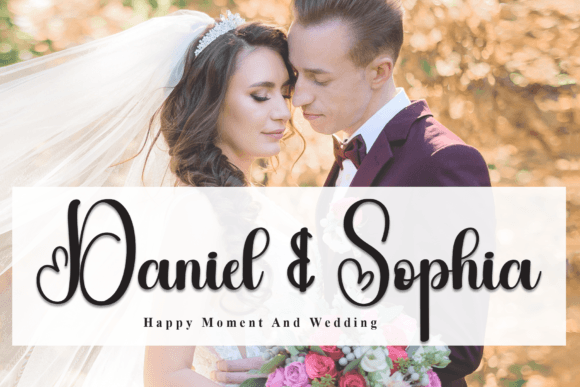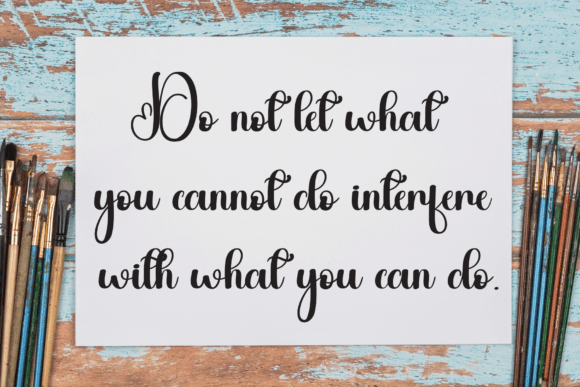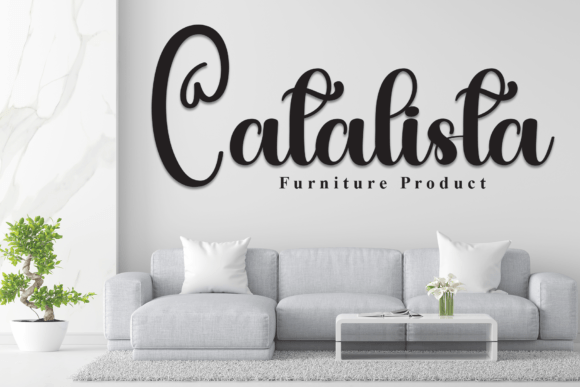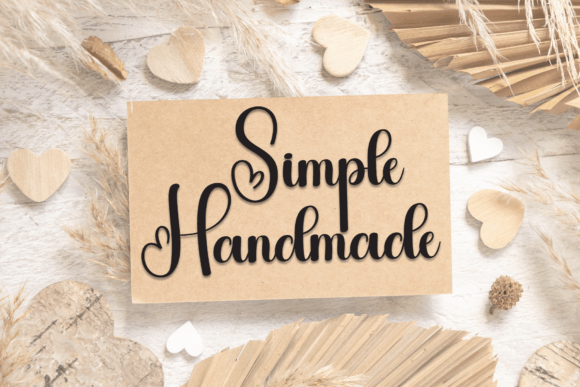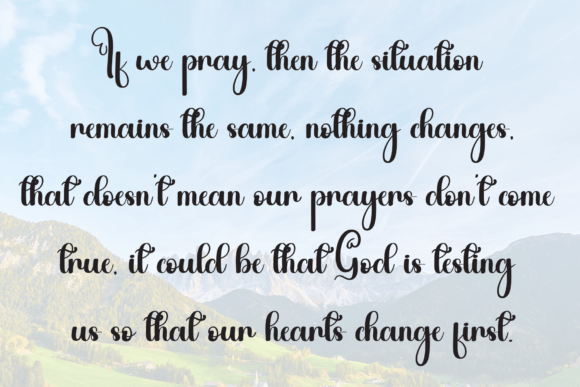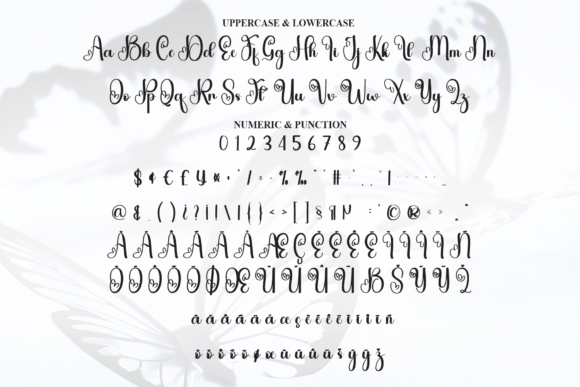
The Elegance of Butterfly Font: A Designer’s Delight
I’ll never forget the time I was working on a wedding invitation project, and my client asked for a font that was both elegant and playful. I scoured the internet, tried countless fonts, but nothing seemed quite right. That was until I stumbled upon Butterfly Font. Its flowing, graceful curves instantly captivated me, and I knew I had found the perfect fit. In this article, I’ll share my love for Butterfly Font, its features, and how to make the most of it in your designs.
An Honest Review of Butterfly Font
Butterfly Font is a stylish handwritten script font that exudes elegance and charm. Here are some things I love about it:
- ✨ Elegant and flowing curves that add a touch of sophistication to any design
- ✅ Perfect for invitations, logos, and branding, where a personal and charming touch is desired
- 💫 Delicate strokes that bring warmth and creativity to your projects
- 🎨 Highly versatile and can be used for a wide range of design applications
While Butterfly Font is a beautiful font, it’s not without its quirks. Here are a few things to keep in mind:
- 🤔 Some letters may require manual kerning to achieve optimal spacing
- ⚠️ May not be suitable for body text or long-form content due to its script nature
Butterfly Font was created by a talented type designer who’s passionate about crafting beautiful, elegant fonts. Inspired by the delicate curves of butterfly wings, the designer aimed to create a font that would add a touch of sophistication and charm to any design. With its flowing curves and delicate strokes, Butterfly Font is a true masterpiece.
| What is Butterfly Font best used for? | Butterfly Font is perfect for invitations, logos, branding, and any design project that requires a personal and sophisticated touch. |
| Is Butterfly Font suitable for body text? | No, Butterfly Font is a script font and may not be suitable for body text or long-form content. It’s best used for headlines, titles, and short paragraphs. |